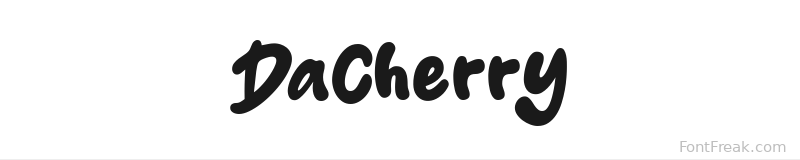
Dacherry
Dacherry, designed by Syaf Rizal, is a charming handwritten font that exudes a playful yet elegant aesthetic. Its unique style is characterized by fluid strokes and a slightly irregular baseline, giving it an organic feel that mimics natural handwriting. The stroke weight varies subtly, creating a delightful contrast that enhances its visual appeal. The generous spacing between letters adds to its legibility, making it suitable for a variety of applications. Decorative elements, such as whimsical curves and playful loops, make Dacherry stand out as a distinctive choice for design projects.
This font is particularly well-suited for wedding invitations, where its romantic flair can add a personal touch. Additionally, it excels in crafting engaging restaurant menus that invite diners to discover culinary delights. Its informal yet stylish nature makes it perfect for social media graphics, allowing content creators to capture attention with eye-catching quotes or announcements. Graphic designers seeking to create visually appealing branding materials will also find Dacherry an excellent fit, as it conveys a sense of warmth and approachability.
What sets Dacherry apart is its ability to blend personality with functionality. Its playful essence resonates with audiences while maintaining clarity and readability. Whether used in print or digital formats, Dacherry makes a lasting impression, ensuring that your designs not only convey the intended message but also evoke emotion. This font is a delightful addition to any typographer's collection.